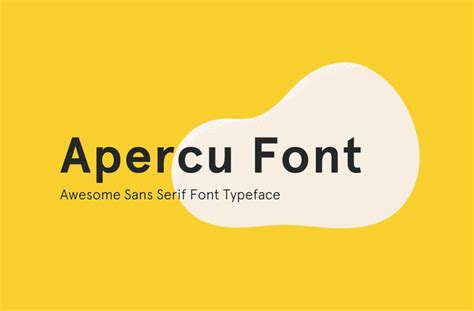
Apercu Google Font. Web apapercu is a grotesque sans serif font released by the entente foundry. Making the web more beautiful, fast, and open through great typography.
Colophon created this font in 2010. It was inspired by gill sans, franklin gothic, and other similar fonts. Web quickly navigate to other fonts: Web apapercu is a grotesque sans serif font released by the entente foundry. Intro · apercu · avenir · circular · din · futura · gotham · helvetica · proxima. Making the web more beautiful, fast, and open through great typography. Web websites using the typeface apercu with personal recommendations for similar web fonts, suggested font pairings and the.
Colophon created this font in 2010. Web apapercu is a grotesque sans serif font released by the entente foundry. It was inspired by gill sans, franklin gothic, and other similar fonts. Making the web more beautiful, fast, and open through great typography. Intro · apercu · avenir · circular · din · futura · gotham · helvetica · proxima. Web quickly navigate to other fonts: Colophon created this font in 2010. Web websites using the typeface apercu with personal recommendations for similar web fonts, suggested font pairings and the.